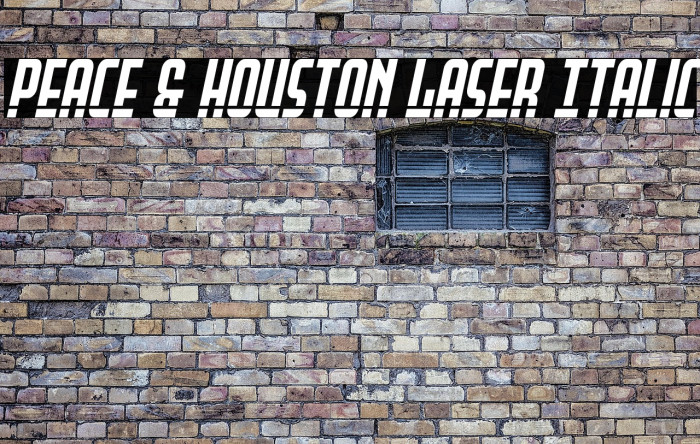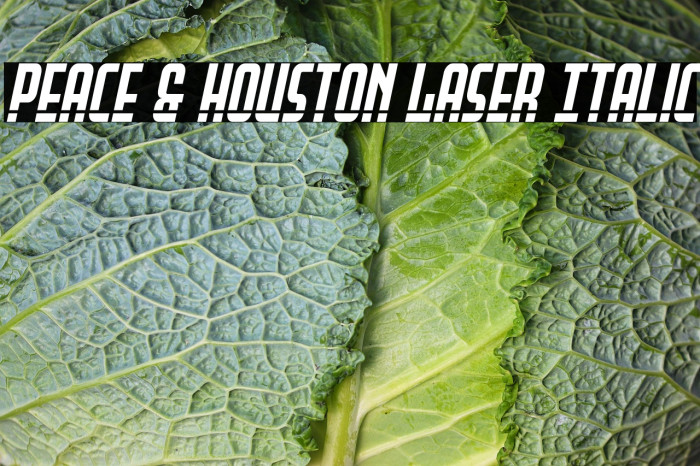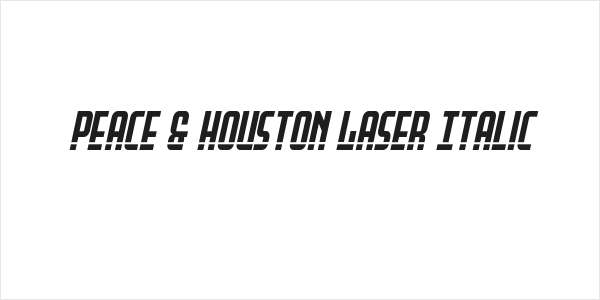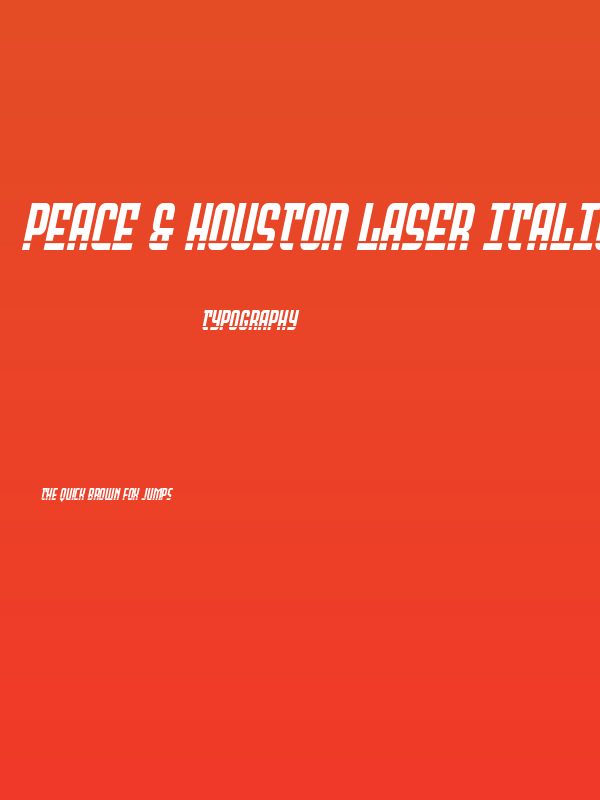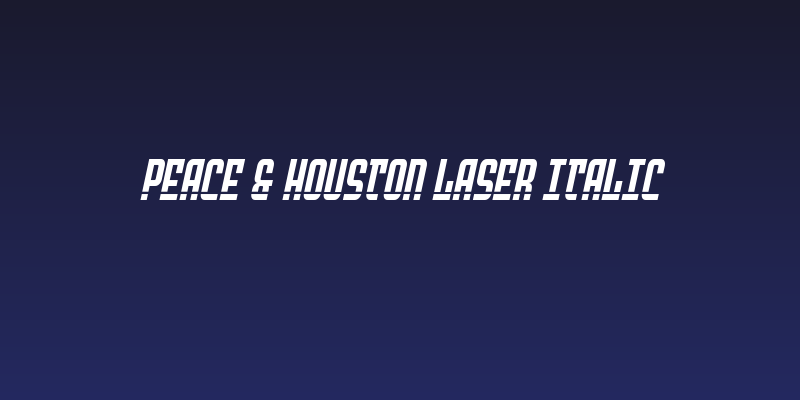
Peace & Houston Laser Italic Font
Peace & Houston Laser Italic Description
This font features a bold, italicized style with a futuristic and dynamic appearance. The characters are slanted, giving a sense of motion and speed. The strokes are thick and consistent, with a slight geometric influence that adds to its modern aesthetic. The uppercase and lowercase letters maintain a uniform height, while the numbers and special characters are designed to complement the overall style. This font is ideal for projects that require a strong visual impact and a contemporary feel.
| Proposed Projects | Ideal for sports branding, automotive advertisements, tech company logos, and dynamic poster designs. |